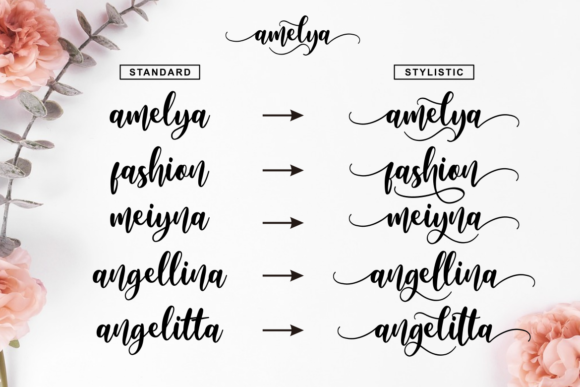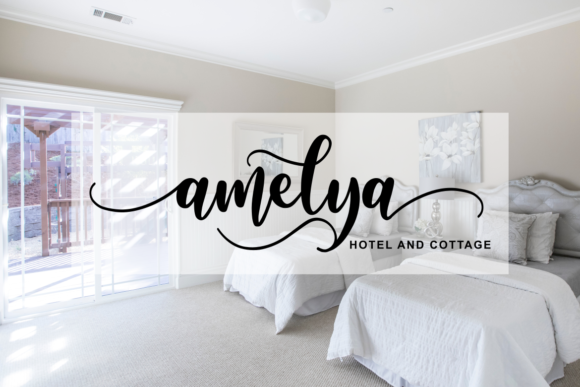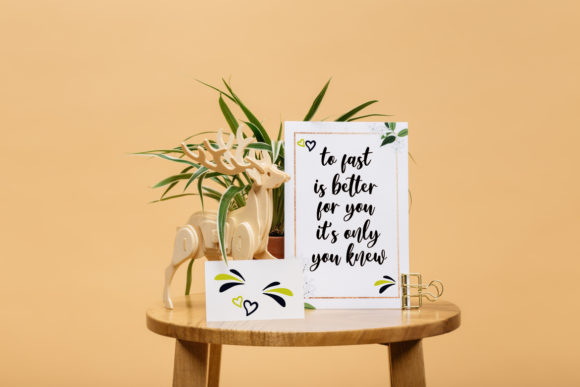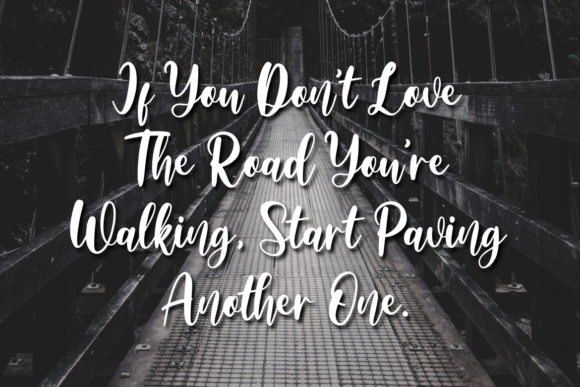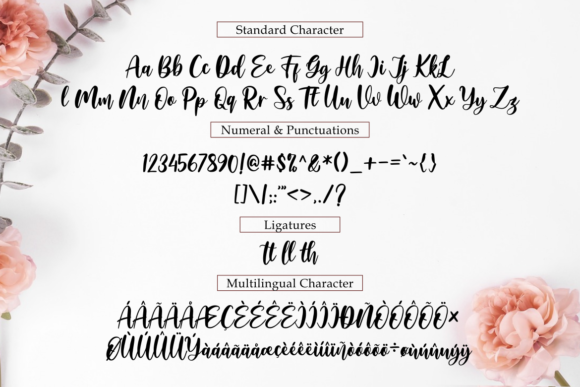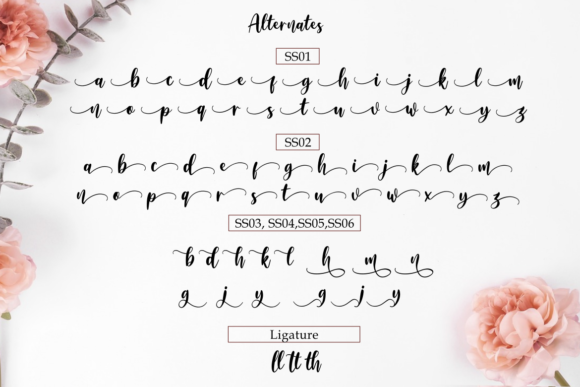
Discover the Timeless Charm of Amelya Font: A Delicate Handwritten Classic
Are you a designer or crafter on the hunt for a font that exudes elegance and sophistication? Look no further than Amelya Font, a beautiful handwritten font with a delicate feel that’s sure to capture your heart. With its authentic charm and classic appeal, Amelya is the perfect choice for a wide range of creative projects.
Handwritten fonts have a unique ability to add a personal touch to any design project. They evoke a sense of warmth and personality that’s hard to replicate with more formal, printed fonts. And Amelya Font is no exception. With its flowing curves and delicate strokes, Amelya is a true masterpiece of handwritten typography.
What Makes Amelya Font So Special?
So what sets Amelya Font apart from other handwritten fonts on the market? For starters, its delicate feel is unmatched. Each letter is carefully crafted to create a sense of elegance and refinement that’s perfect for designs that require a touch of sophistication. And with its classic appeal, Amelya is a font that will never go out of style.
But Amelya’s charm goes beyond its aesthetic appeal. This font is also incredibly versatile, making it suitable for a wide range of design projects. Whether you’re working on a wedding invitation, a branding campaign, or a DIY craft project, Amelya is the perfect choice.
Using Amelya Font in Your Design Projects
One of the best things about Amelya Font is how easy it is to use. Whether you’re a seasoned designer or a crafting novice, you can easily incorporate Amelya into your projects. Here are just a few ideas to get you started:
• Wedding invitations and stationery: Amelya’s elegant feel makes it perfect for wedding designs, from invitations to thank-you cards.
• Branding and packaging: Add a touch of sophistication to your brand with Amelya, perfect for packaging, labels, and business cards.
• DIY crafts: Amelya is a great choice for crafters, perfect for journaling, scrapbooking, and other paper crafts.
• Digital designs: Use Amelya in your digital designs, from social media graphics to blog headers.
Why Designers and Crafters Love Amelya Font
So why do designers and crafters love Amelya Font? For one, its unique charm and character make it a standout in any design project. But it’s not just about looks – Amelya is also incredibly practical. Here are just a few reasons why:
• Easy to read: Despite its delicate feel, Amelya is surprisingly easy to read, making it perfect for body text and other large blocks of text.
• Highly versatile: Amelya can be used in a wide range of design projects, from formal to informal.
• Timeless appeal: Unlike trendy fonts that quickly go out of style, Amelya’s classic appeal ensures it will remain a popular choice for years to come.
If you’re looking for a font that combines elegance, sophistication, and a touch of whimsy, look no further than Amelya Font. With its delicate feel and classic appeal, Amelya is the perfect choice for designers and crafters alike. Whether you’re working on a wedding invitation, a branding campaign, or a DIY craft project, Amelya is sure to capture your heart and inspire your creativity.